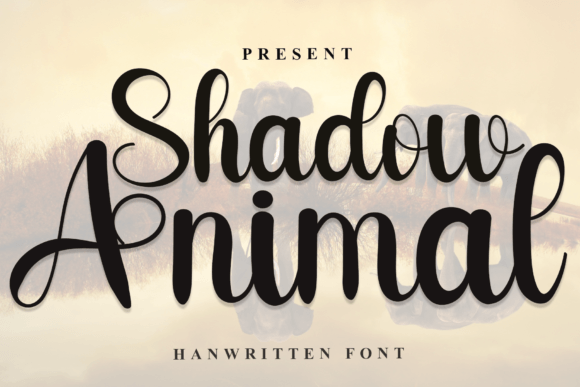
Introducing the mesmerizing Shadow Animal Font, a masterpiece created by the talented team at PiPi Creative. This script font is not just your ordinary typeface; it has been meticulously crafted to captivate your senses and elevate your design projects to new heights.
With its elegant calligraphic influences, Shadow Animal Font exudes a timeless charm that effortlessly blends with modern aesthetics. It strikes the perfect balance between classic sophistication and contemporary allure, making it a must-have for any designer or creative individual.
Are you tired of using generic fonts that lack personality? Look no further! Shadow Animal Font is here to infuse your designs with a touch of uniqueness and creativity. Each letter is meticulously handcrafted, resulting in a visually stunning display of artistry. Let your imagination run wild as you explore the endless possibilities this font offers.
Whether you're designing invitations, greeting cards, or even creating personalized art, Shadow Animal Font is the perfect choice. Its versatility knows no bounds, allowing you to effortlessly create captivating designs for any occasion. Add a touch of elegance to wedding invitations, inject playfulness into birthday cards, or convey warmth and love through heartfelt messages.
But what sets Shadow Animal Font apart from the rest? It's not just the visually appealing aesthetics or its versatility; it's the emotions it evokes. This font has the power to evoke a sense of nostalgia, transporting you to a world of handwritten letters and cherished memories. It brings a personal touch to your designs, making them more relatable and meaningful to your audience.
Imagine the joy on your loved ones' faces as they receive a beautifully designed card, adorned with the exquisite Shadow Animal Font. It's more than just a font; it's an experience, a journey into the realm of emotions and heartfelt connections.
So why wait? Unleash your creativity and let Shadow Animal Font breathe life into your designs. With its rich, emotional appeal and impeccable craftsmanship, it's bound to become an indispensable tool in your design arsenal. Whether you're a professional designer or a passionate hobbyist, this font will take your projects to unparalleled levels of excellence.
Don't settle for ordinary. Choose extraordinary. Choose Shadow Animal Font and embark on a design adventure like no other. Let your imagination soar and watch as your creations leave a lasting impression on those who behold them.